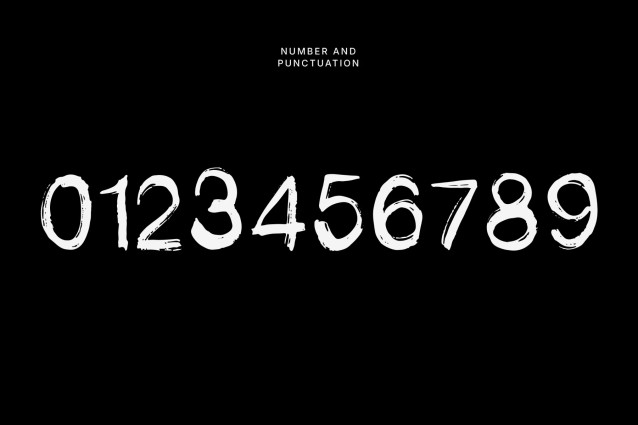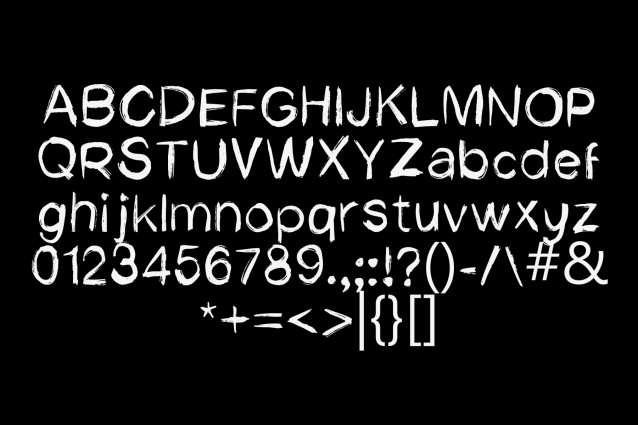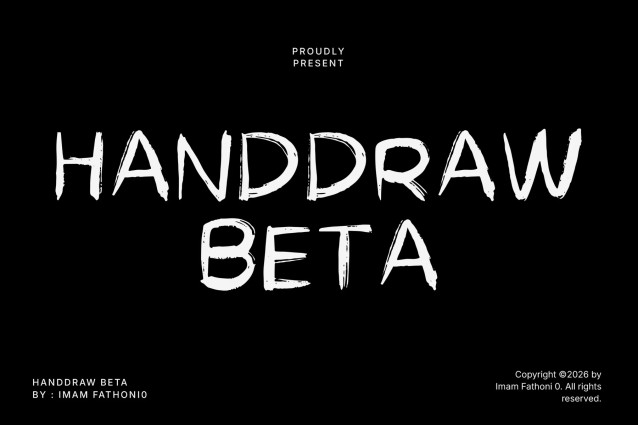
HandDraw Beta Font
HandDraw Beta is Grimhand Brush is a raw, hand-painted display font built for gothic and horror-themed designs. Every letterform carries the uneven pressure and jagged texture of a dry brush dragged across rough paper, giving it a sinister, unsettling energy perfect for scary, dark-themed projects. Its irregular strokes and dripping edges make each word feel handwritten under candlelight rather than typed on a screen.
Perfect For
Halloween decor, horror movie posters, metal band merch, gothic branding, tattoo studio logos, haunted house signage, spooky invitations, streetwear and apparel graphics, game and book covers, dark-themed social media content.
| Designer Name: | Imam Fathoni |